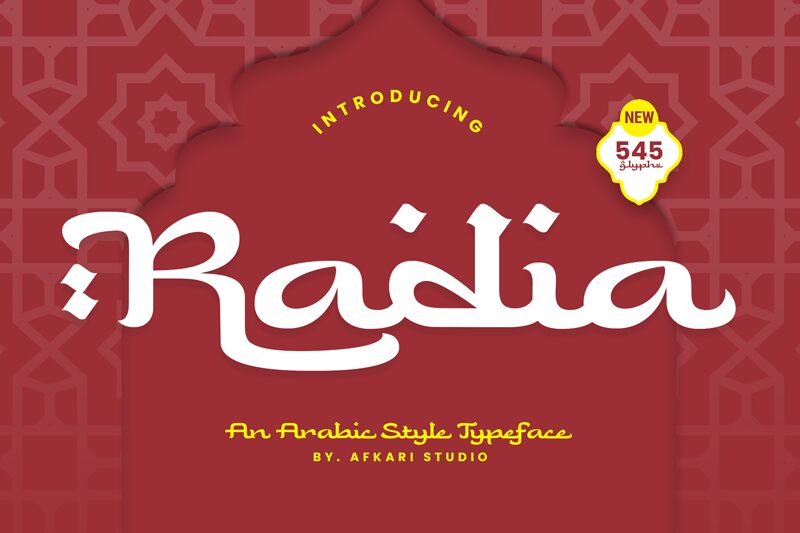
Radia, designed by Musthafa Kamal Emje of Afkari Studio, presents a captivating blend of tradition and contemporary flair. This Arabic font boasts an expanded width that gives it a pronounced presence on the page, making it ideal for headings and signage where visibility is key. Its character set reflects the rich cultural heritage of Arabic calligraphy while offering a modern twist that enhances its aesthetic appeal.
The artistic curves and fluidity of Radia provide a sense of elegance and sophistication, making it well-suited for branding, elegant packaging designs, and creative print media. The font’s expanded form factor not only allows for exceptional readability at various sizes but also adds to its versatility across different mediums.
With Radia's unique style, designers have the opportunity to infuse their projects with an element of cultural depth while maintaining a sleek and current look. Whether used in digital applications or printed materials, Radia promises to be an impactful addition to any creative endeavor seeking to incorporate the beauty of Arabic typography with a fresh perspective.